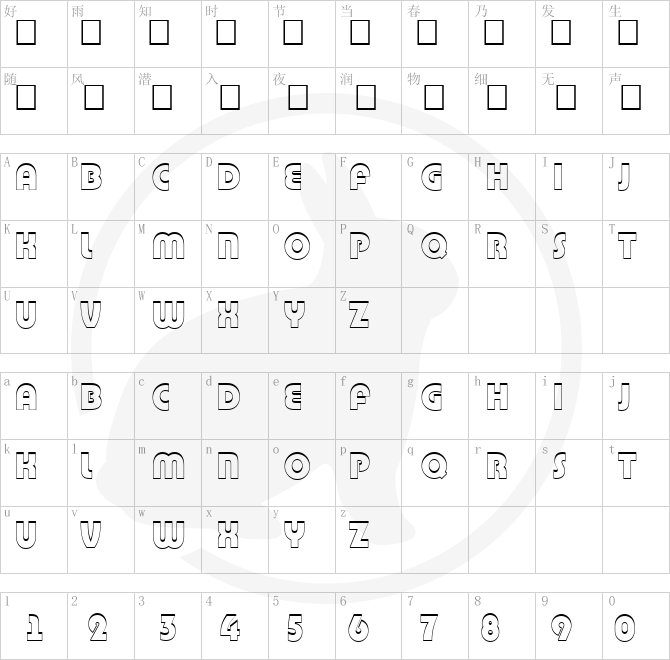
- Font Name:a_BighausTitul3D
- Subfamily:a_BighausTitul3D
- Full Name:a_BighausTitul3D
- PostScript:a_BighausTitul3D
a_BighausTitul3D.ttf is a very beautiful artistic font, a_BighausTitul3D.ttf is widely used in the design and printing of various books and pictures,a_BighausTitul3D.ttf has a strong visual impact,a_BighausTitul3D.ttf is a commonly used font in newspapers, magazines and books, and is used in posters, e-commerce Poster design, store design, logo design, font design and other fields.a_BighausTitul3D.